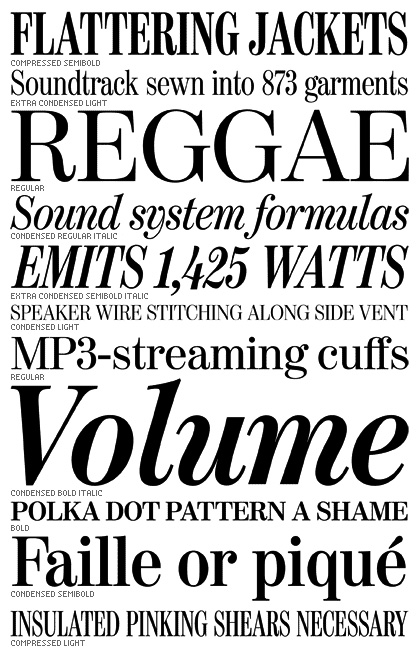
Moderno (Font Bureau)
Intended for display use in print publications, David Berlow
conceived FB Moderno as a relative of Giza, our famous slab serif.
He used Apple's (later abandoned) GX technology to interpolate
between two 19th century serif styles, a "slab" and a "modern" -
a type design first!
After being adopted by Eduardo Danilo for the design of Reforma
in Mexico City (1993), and then Roger Black's redesign of the
Baltimore Sun (1994–95), and by Esquire magazine, the Montreal
Gazette expanded the family under Louise Vincent. Cases i Associats
added even more weights for La Stampa in Turin.
David has now aligned the weights and widths to make a super 32
style family, in much the same manner he tamed Bureau Grot to
make a wide mix of styles. This is a classic (actually neo-classical)
Font Bureau tale of custom font development. The result, we offer
a complete 21st Century Modern Family to you: FB Moderno (Modern
is the traditional name for Bodoni-like typefaces that have a lot of
contrast between thicks and thins).
32 Styles: light, regular, semibold, and bold in normal, condensed,
extra condensed, and compressed widths. All with italics.
Die Condensed Regular Italic finde ich grauslich, ganz ehrlich. Warum der Font "Moderno" heißt erschließt sich mir auch nicht…